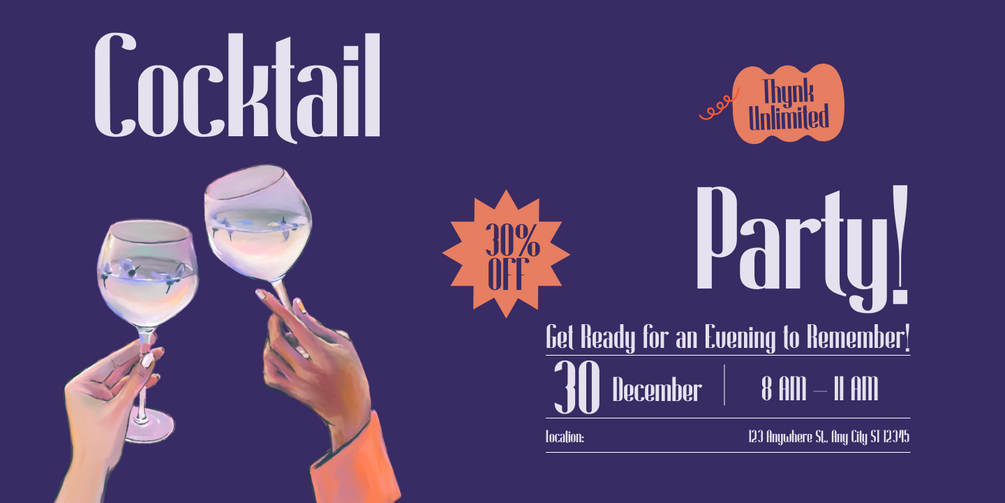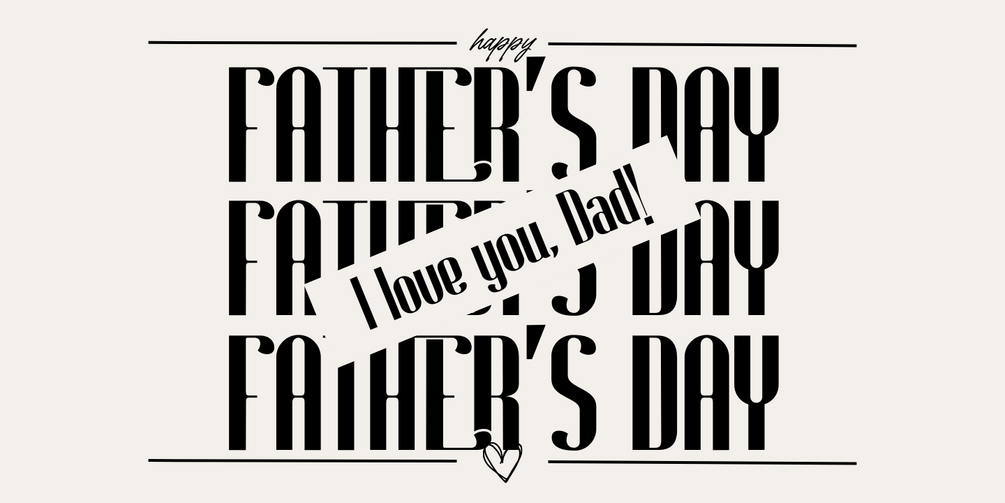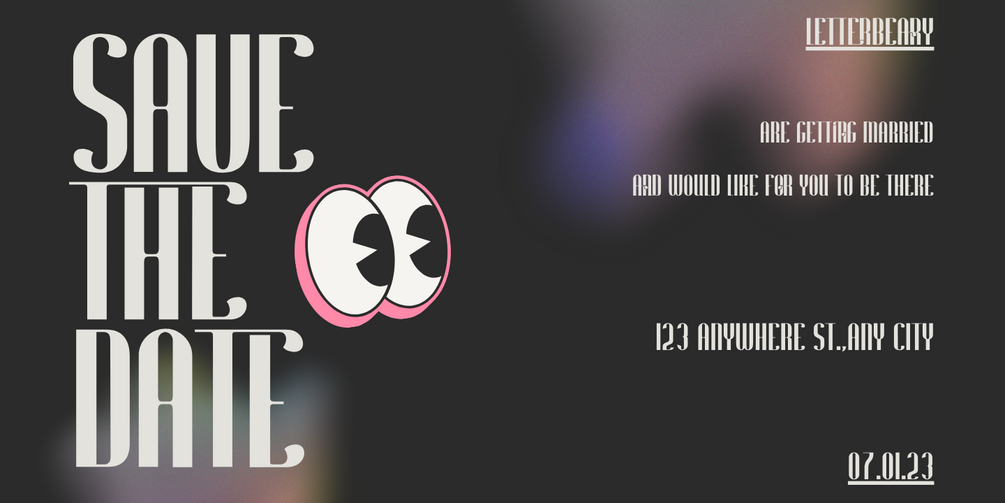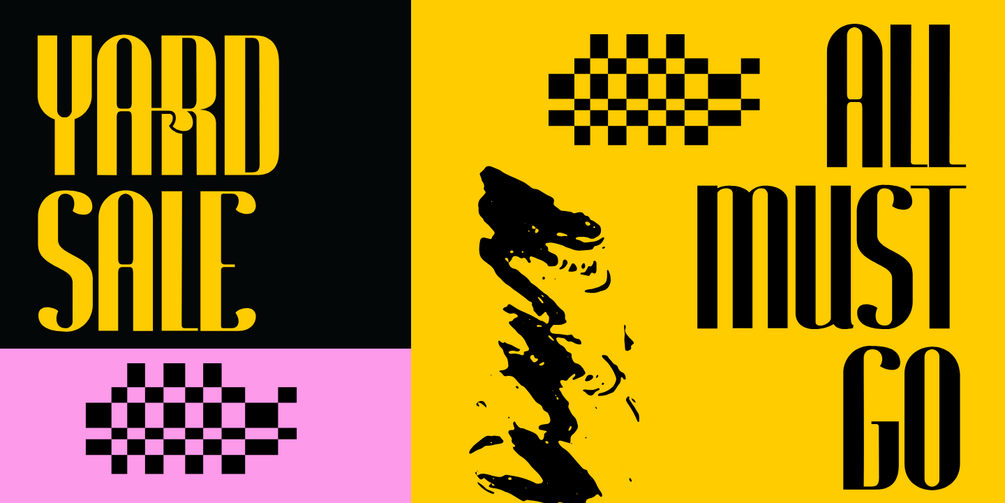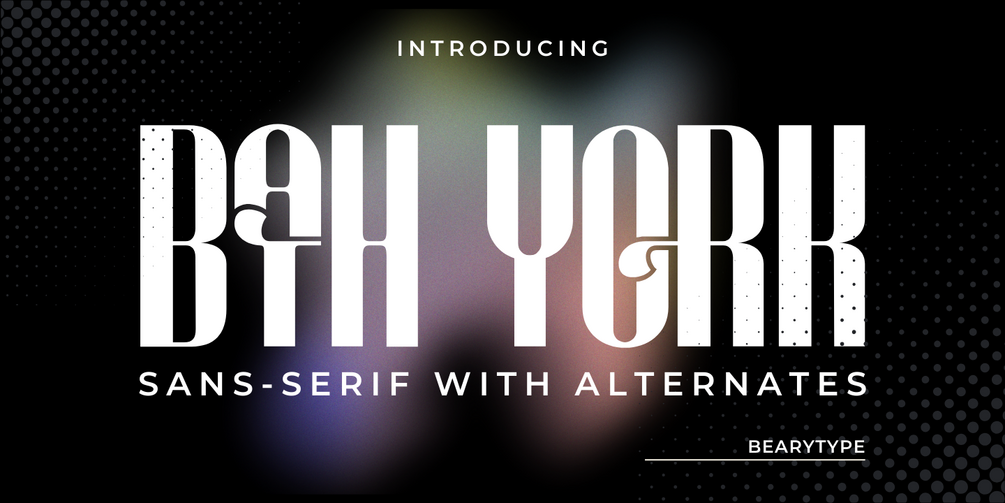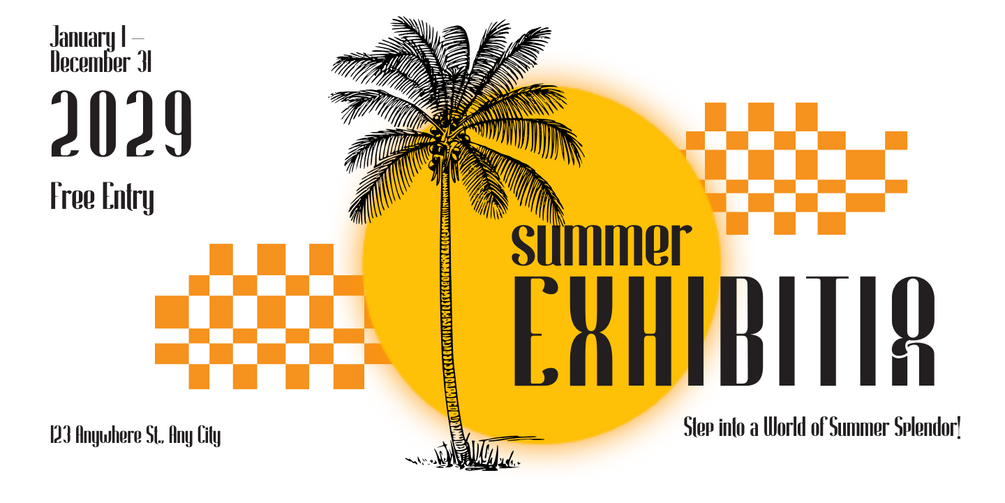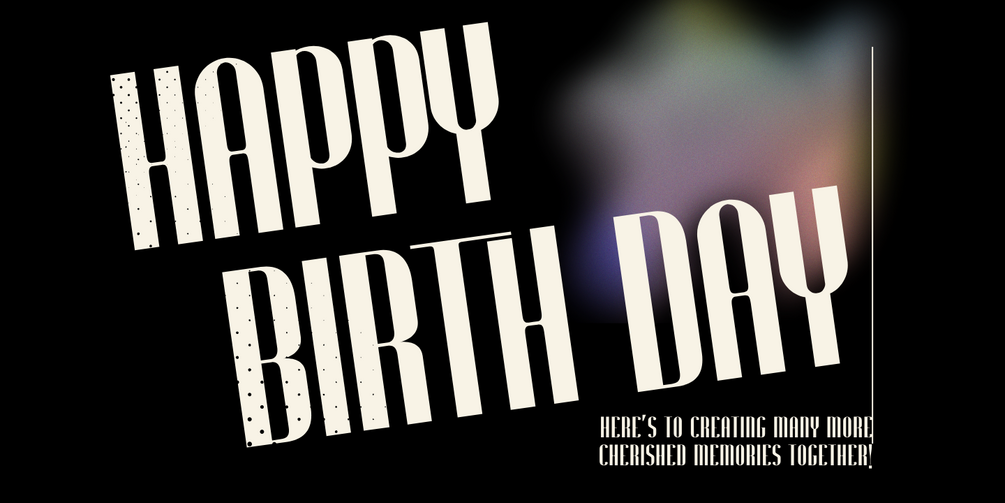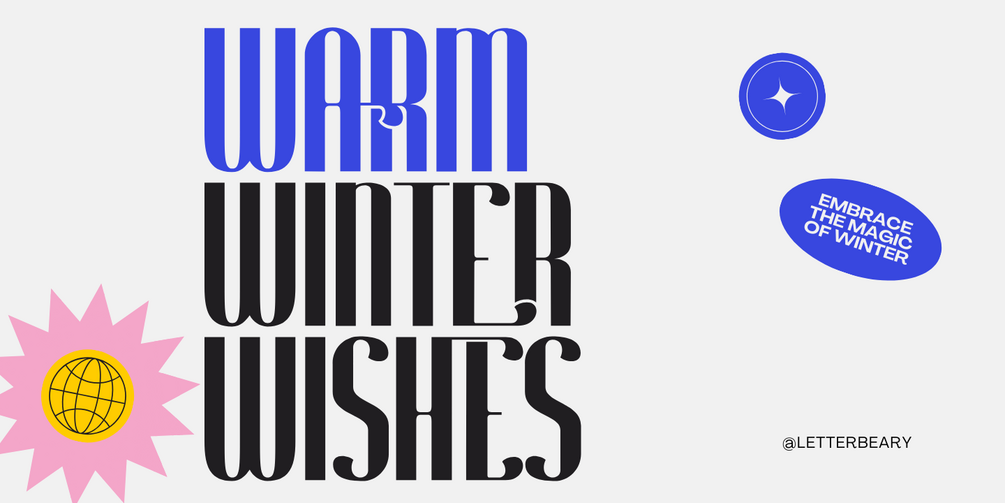
Bath York
Looking for a font that’s stylish—but still feels refined and elegant?
Bath York is where creativity meets sophistication through the art of beautiful ligatures.
Each connection between letters flows seamlessly, thanks to meticulously designed ligatures that create a sense of rhythm and harmony in every word. From logos to headlines, branding to editorial, Bath York adds a luxurious touch that elevates any project.
✨ Stunning ligatures for visual flow
✨ Crafted with precision and artistic detail
✨ Ideal for elegant branding, packaging, and high-end layouts
Bath York isn’t just a font—it’s a visual statement.
🎨 Make every letter count. Let Bath York tell your story with elegance.